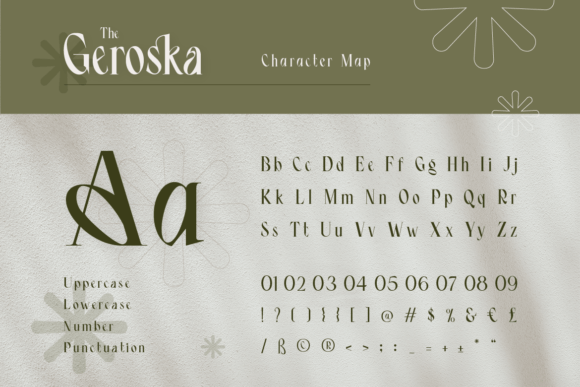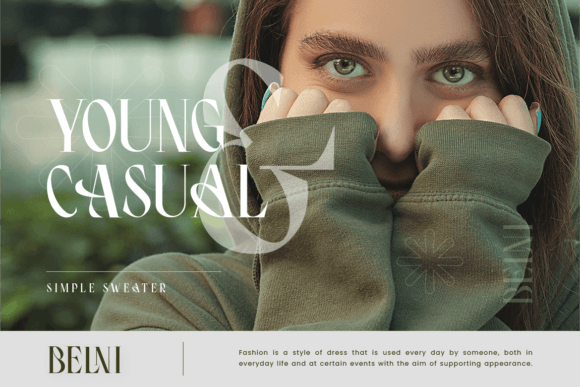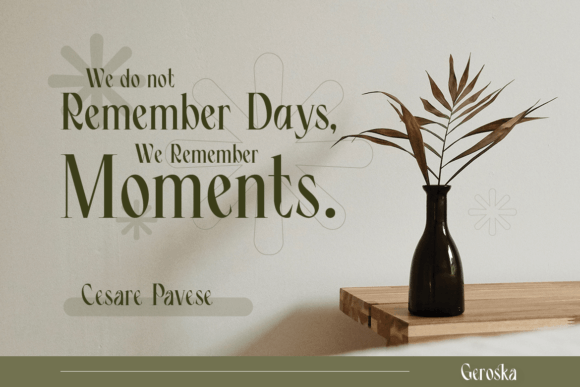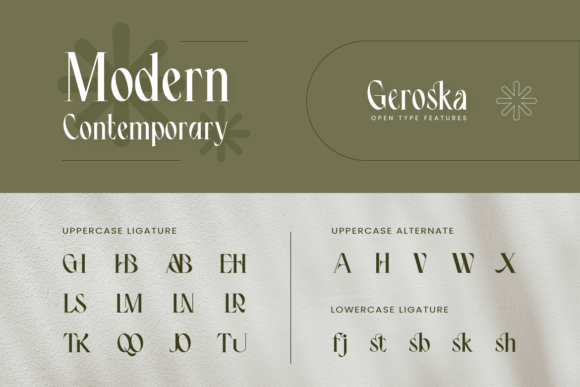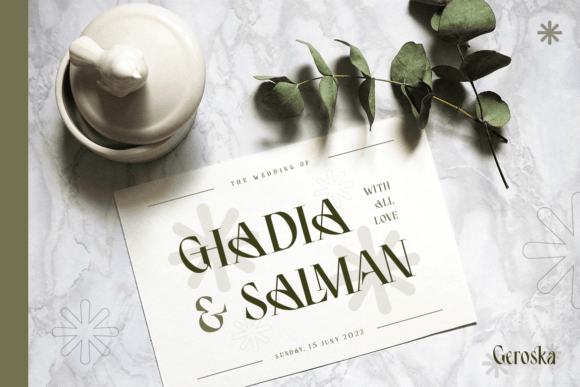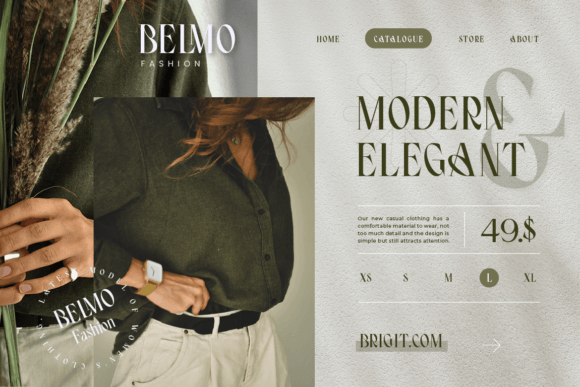
The Geroska Font: A Modern Serif for Creative Projects
Have you ever been in the middle of a design project, and suddenly, you’re stuck on finding the perfect font? I recall a recent experience where I was working on a logo design for a client, and I just couldn’t seem to find a serif font that felt modern, yet elegant. That’s when I stumbled upon the Geroska font, and it instantly became my go-to choice. In this article, we’ll dive into the world of Geroska, exploring its features, uses, and what makes it an excellent addition to your font library.
A Personal Review of Geroska
- ✨ Contemporary feel: Geroska’s serif design is inspired by Mid-Century, Modern, and Aesthetic styles, making it perfect for projects that require a fresh, yet classic look.
- ✅ Versatility: This font is suitable for a wide range of applications, including logo design, social media, movie titles, book titles, short text, and long text.
- 💡 Pairing flexibility: Geroska works beautifully as a secondary font, paired with sans or script fonts, giving you endless creative possibilities.
While Geroska is an excellent font, there are a few minor quirks to be aware of:
- 🤔 Limited availability of swashes: Geroska doesn’t come with an extensive range of swashes, which might be a drawback for some designers.
- ⚠️ Requires careful kerning: As with any serif font, kerning is crucial to ensure proper spacing and readability.
The Backstory of Geroska
While the origins of Geroska might be shrouded in mystery, it’s believed to have been designed with inspiration from mid-century modern aesthetics. The creator aimed to craft a font that felt both nostalgic and forward-thinking, making Geroska an intriguing addition to any design project.
Q: What type of projects is Geroska best suited for?
A: Geroska is versatile and can be used for logo design, social media content, movie and book titles, as well as short and long text.
Q: Does Geroska support OpenType features?
A: Yes, Geroska supports OpenType features, including ligatures and stylistic alternates, allowing for creative flexibility.